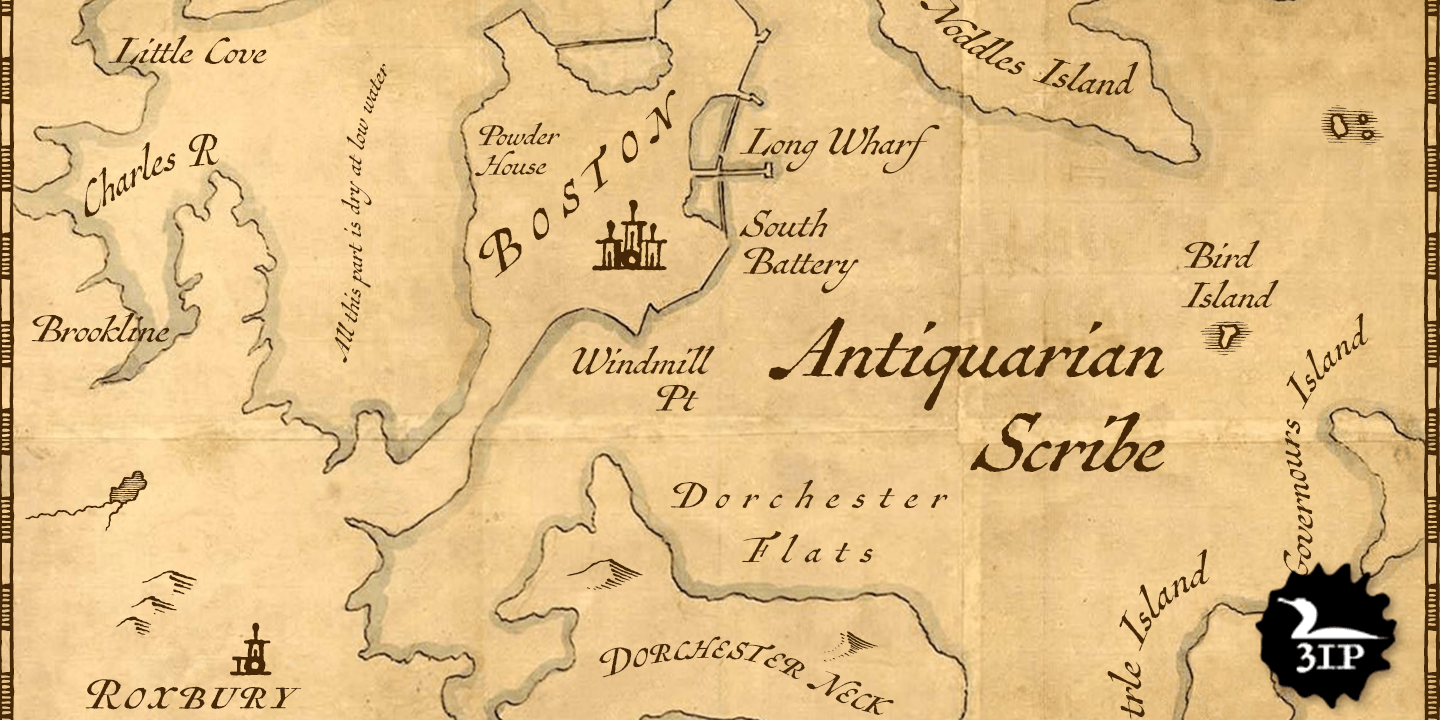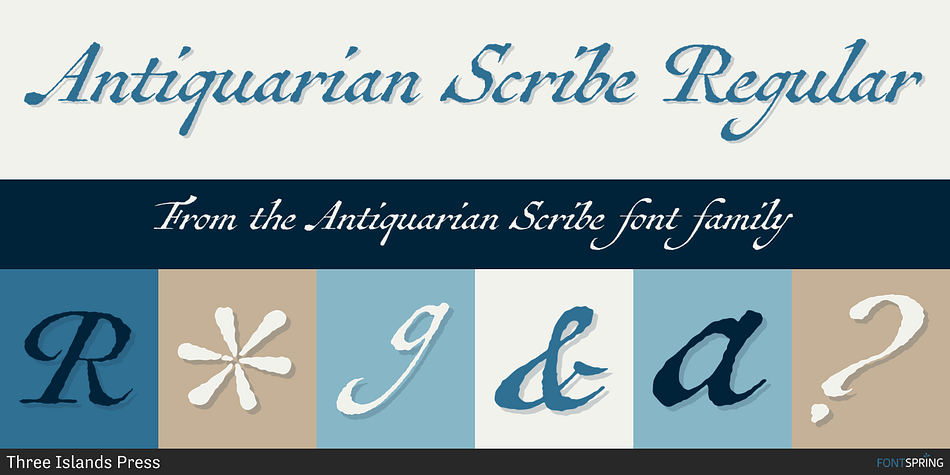
Antiquarian Scribe Regular
Antiquarian Scribe is a historical and script font published by Three Islands Press.
Antiquarian Scribe is modeled after the neat, oblique handlettering displayed on a page of "Atlas Historique, ou Nouvelle Introduction a L
Antiquarian Scribe is modeled after the neat, oblique handlettering displayed on a page of “Atlas Historique, ou Nouvelle Introduction a L’Histoire”—a world atlas published by Henri Abraham Chatelain between 1705 and 1732 in Amsterdam—that I picked up at an antique book shop in London in 2004. (It may be used with authenticity alongside Antiquarian, inspired by the handlettered headlines and captions that appear on the same page.) The source material covers the Near East, India, and the Indian Ocean; its text is in French, which afforded plenty of diacritics and other special characters. The overall effect is neat and legible, with a distinctly historical flair. OpenType features include true small capitals, numerous ligatures, alternate/titling caps, old-style and lining figures, antique map symbols, and Greek and Central/Eastern European alphabets.